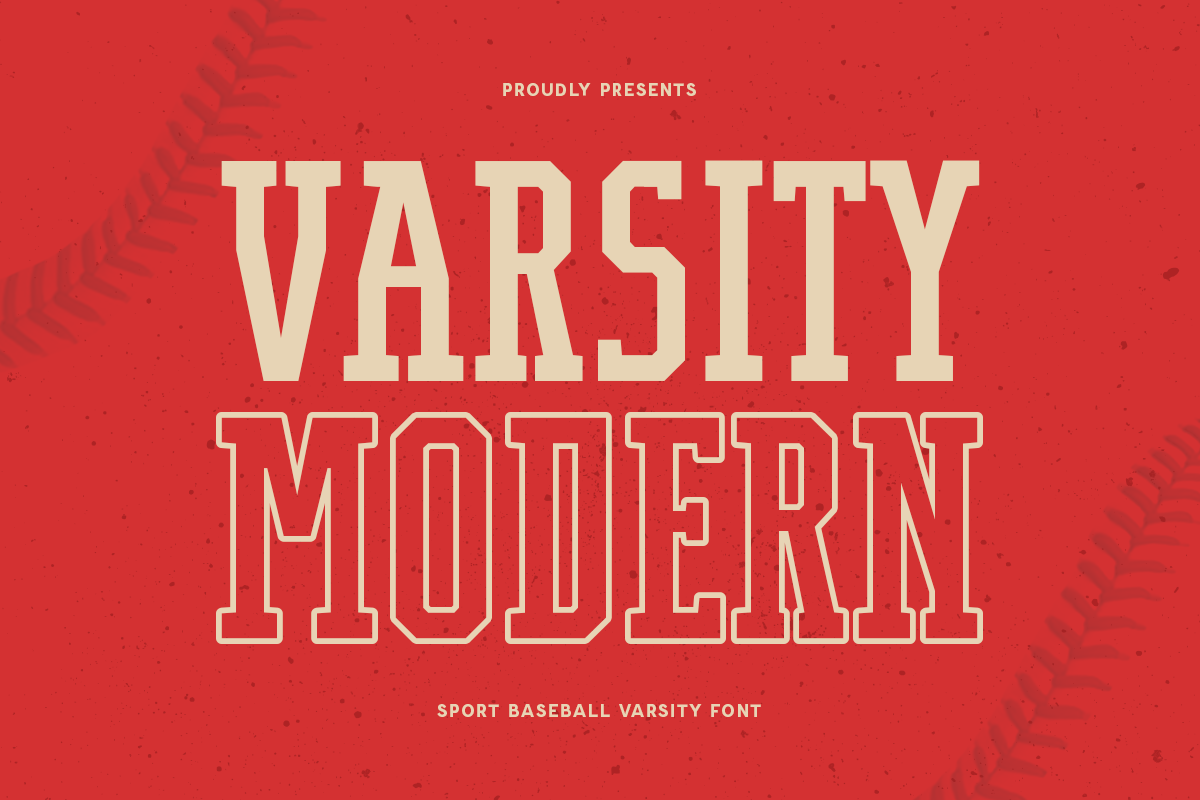
Top 10+ Back to School Fonts in 2026
Discover the best back to school fonts 2026 for classroom designs, educational projects, school branding, worksheets, and creative learning materials.
Back to school season is an exciting moment filled with new beginnings, fresh ideas, and creative opportunities. From classroom decorations and learning materials to school branding, educational worksheets, and social media content, typography plays an important role in creating a memorable learning experience.
The right back to school font can transform ordinary educational designs into something more engaging, friendly, and inspiring. Whether you are a teacher preparing classroom resources, a designer creating school-related projects, or a brand developing educational content, choosing the perfect font helps communicate the right atmosphere.
Back to school designs are not only about visual appearance. They represent creativity, curiosity, learning, and connection. A carefully selected font can make educational materials feel:
Fun and approachable
Creative and inspiring
Organized and professional
Friendly and student-focused
Playful and memorable
Why Choosing the Right Font Matters for Education Designs
Typography has a powerful impact on how students and audiences interact with educational content. The right font choice can improve readability while adding personality to every design element.
Back to school fonts are commonly used for:
Classroom posters and decorations
Worksheets and activity sheets
Educational presentations
Teacher resources
School announcements
Student planners and journals
Learning worksheets
Flashcards and educational games
School merchandise
Social media content
For schools and educational brands, consistent typography also helps create a stronger visual identity across different platforms. A good font system can make educational materials look more professional, recognizable, and engaging.
How to Choose the Best Back to School Font
Choosing the right font depends on the purpose and audience of your design. A good education font should balance creativity with readability. The design should feel exciting without making the text difficult to understand.
For classroom materials:
Choose fonts that are clear, readable, and friendly. Handwritten and rounded fonts work well for worksheets, notes, and learning activities.
For school branding:
Use fonts that feel professional and consistent. A combination of modern serif, sans serif, or display fonts can create a strong academic identity.
For creative educational projects:
Playful fonts, chalk fonts, and handwritten styles can add personality while keeping designs engaging.
Top 10+ Back to School Fonts for Classroom & Education Designs in 2026
In this article, we will explore the best back to school fonts from Sensatype Studio that are perfect for teachers, students, educators, and designers. These fonts are carefully selected for classroom projects, educational branding, printable designs, school campaigns, and creative learning materials.
Boardly - Rough Handwritten Chalk Font
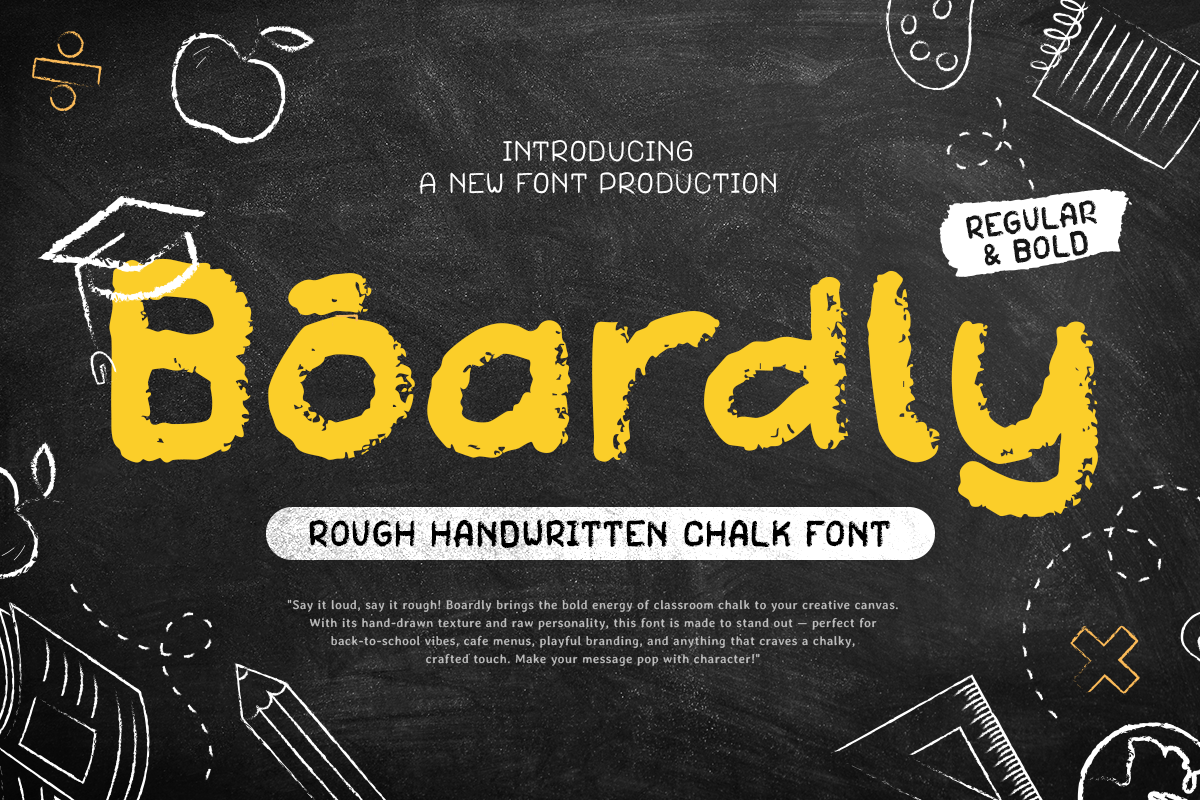
Boardly is a rough handwritten chalk font with authentic textured strokes that create a casual and artistic feel. Perfect for chalkboards, posters, school projects, signage, and creative branding with a handmade touch.
Correct - Rounded Handwritten Scribble Notes
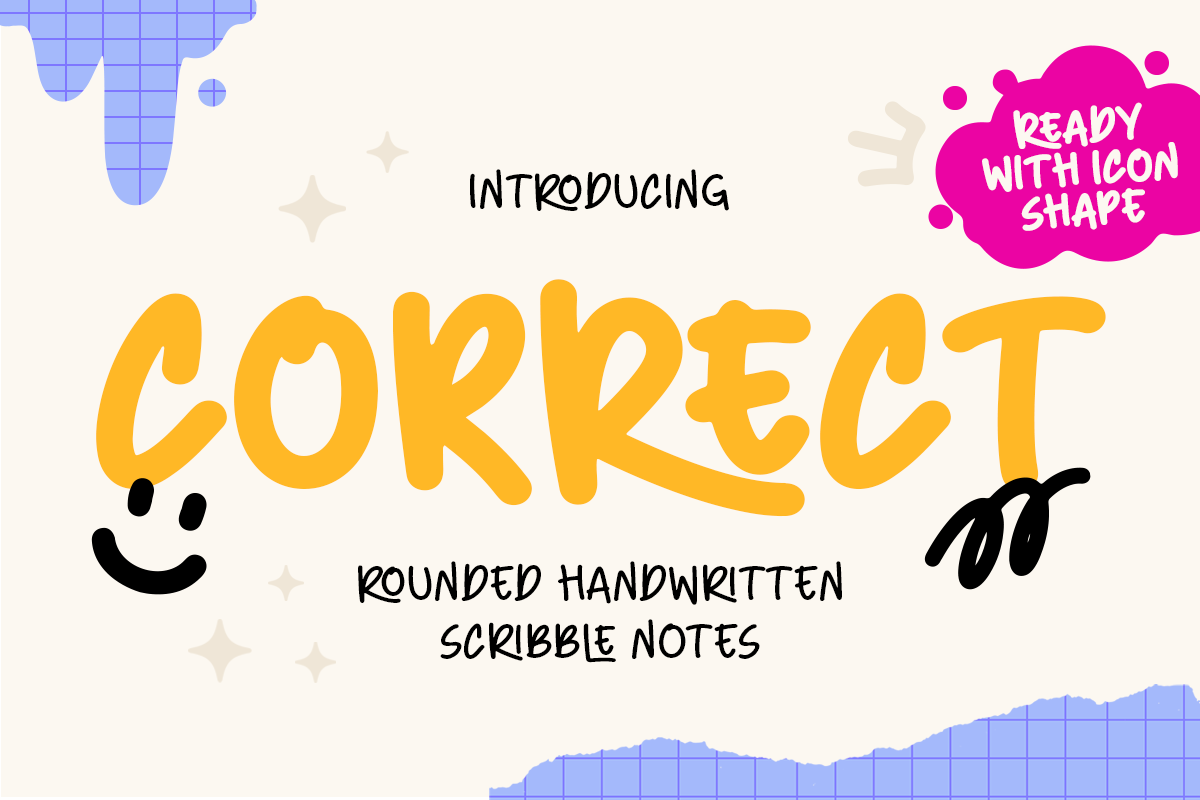
Correct is a rounded handwritten font with soft scribble-style strokes that create a cozy and friendly personality. Perfect for journals, planners, stickers, notes, labels, and playful creative designs.
Teacher Notes - Handwritten Chalk Font
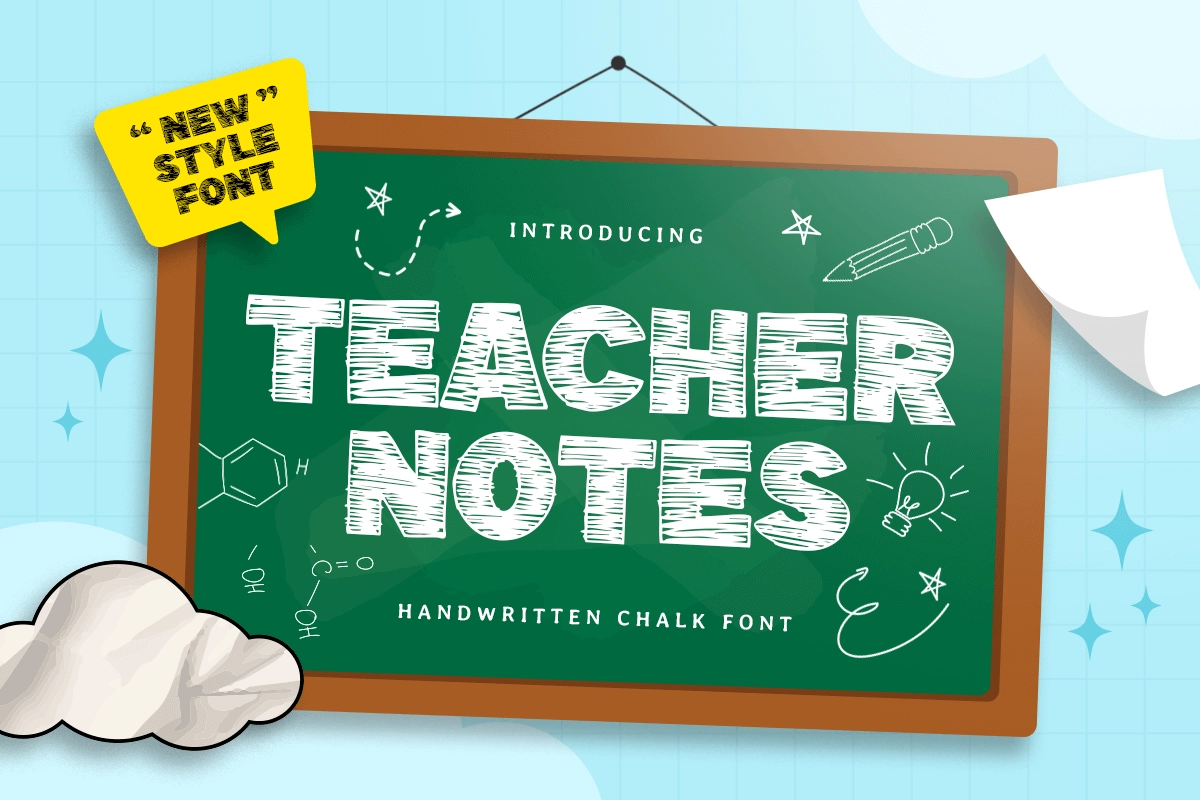
Teacher Notes is a handwritten chalk font inspired by natural blackboard writing. Ideal for educational designs, classroom materials, worksheets, posters, and learning content with a warm handmade style.
Pen Notes - Notes Handwritten Font
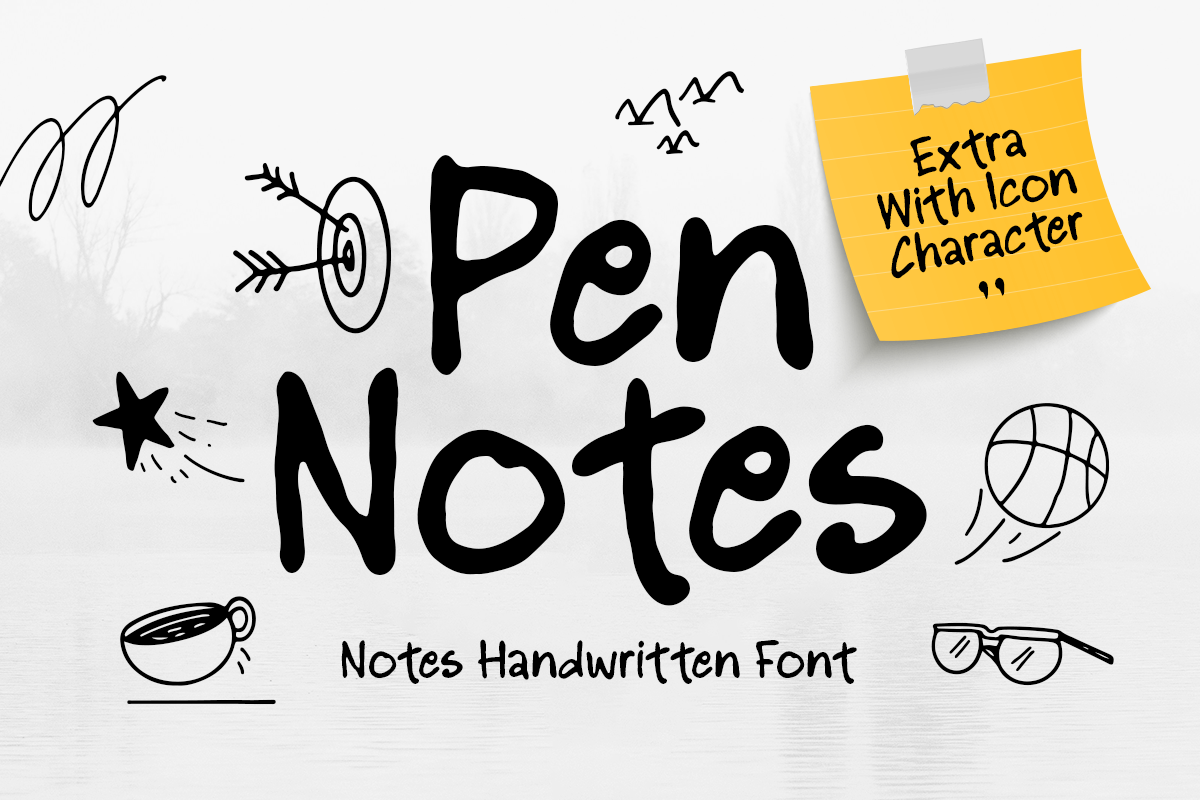
Pen Notes is a natural handwritten font inspired by everyday pen writing. Its neat and friendly style works perfectly for journals, planners, stationery, quotes, labels, and lifestyle branding.
Kalcer - Funny Creative Font
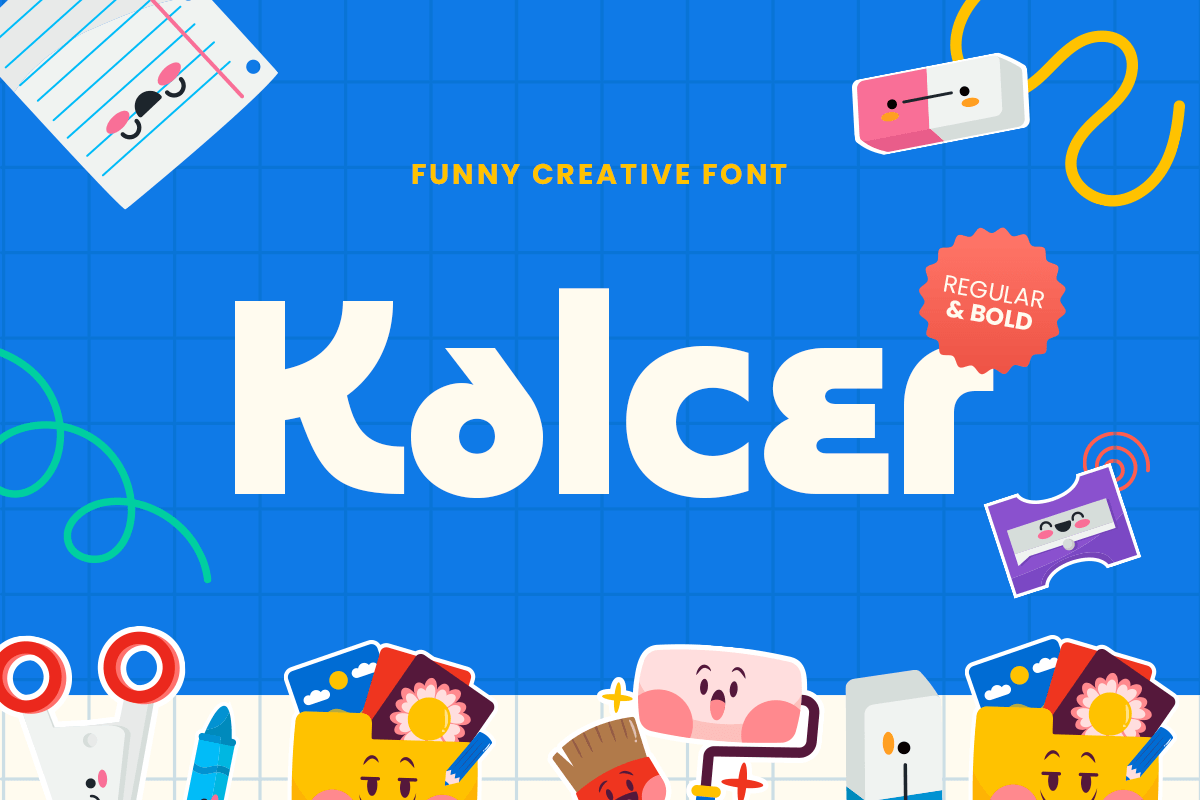
Kalcer is a playful creative font with bubbly shapes and a fun personality. Perfect for children’s designs, packaging, logos, marketing materials, and projects that need a cheerful visual style.
Dream Planner - Handwritten & Sans Draft Font
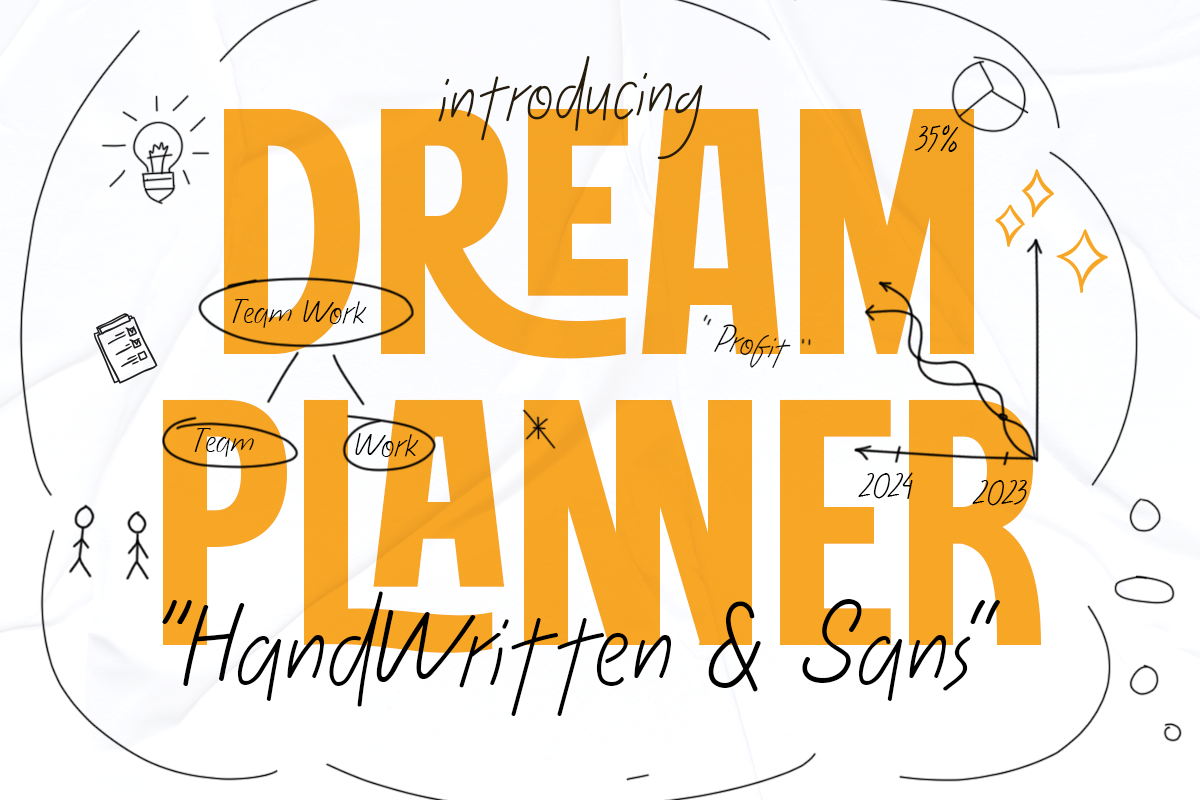
Dream Planner combines elegant handwriting with clean sans serif elements. Perfect for planners, journals, branding, social media, and creative projects that need a personal yet modern touch.
Journaling Notes - Handwritten Notes Font
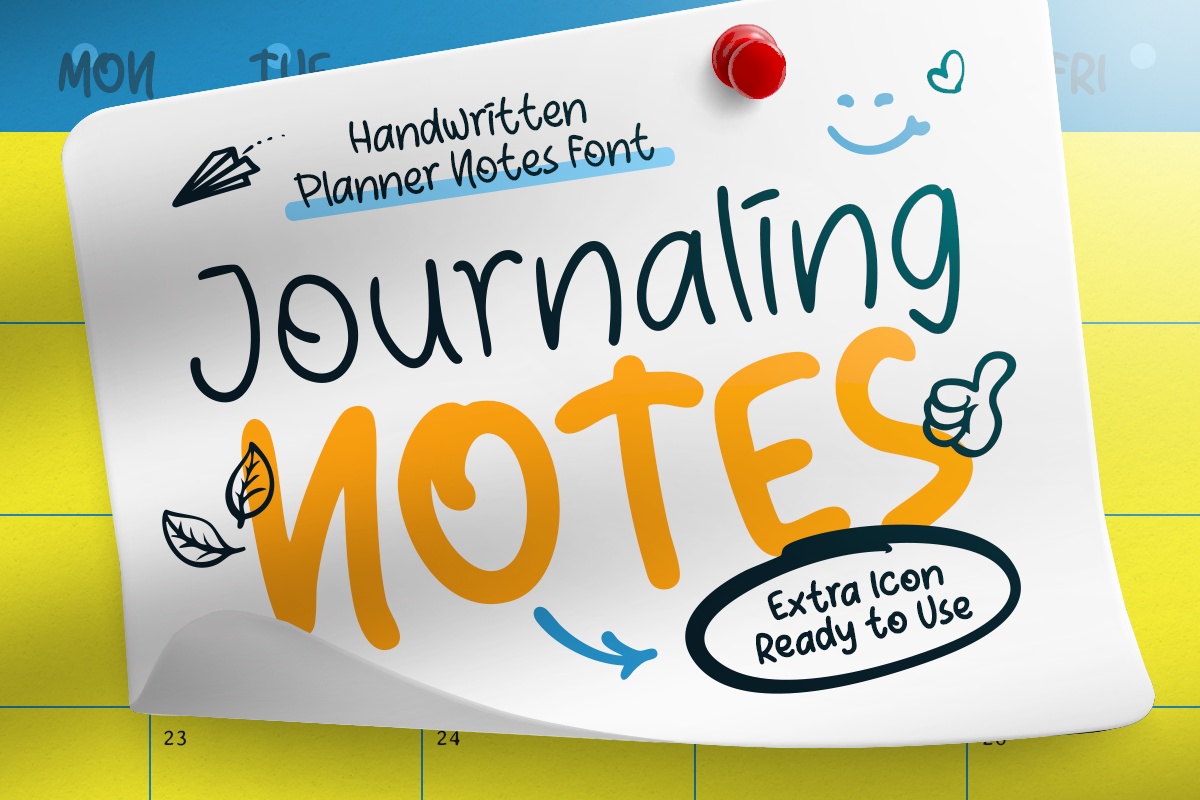
Journaling Notes is a handwritten font inspired by natural pen strokes and personal notes. Perfect for planners, stationery, stickers, packaging, and cozy creative designs.
Planner Notes - Handwritten Marker Font
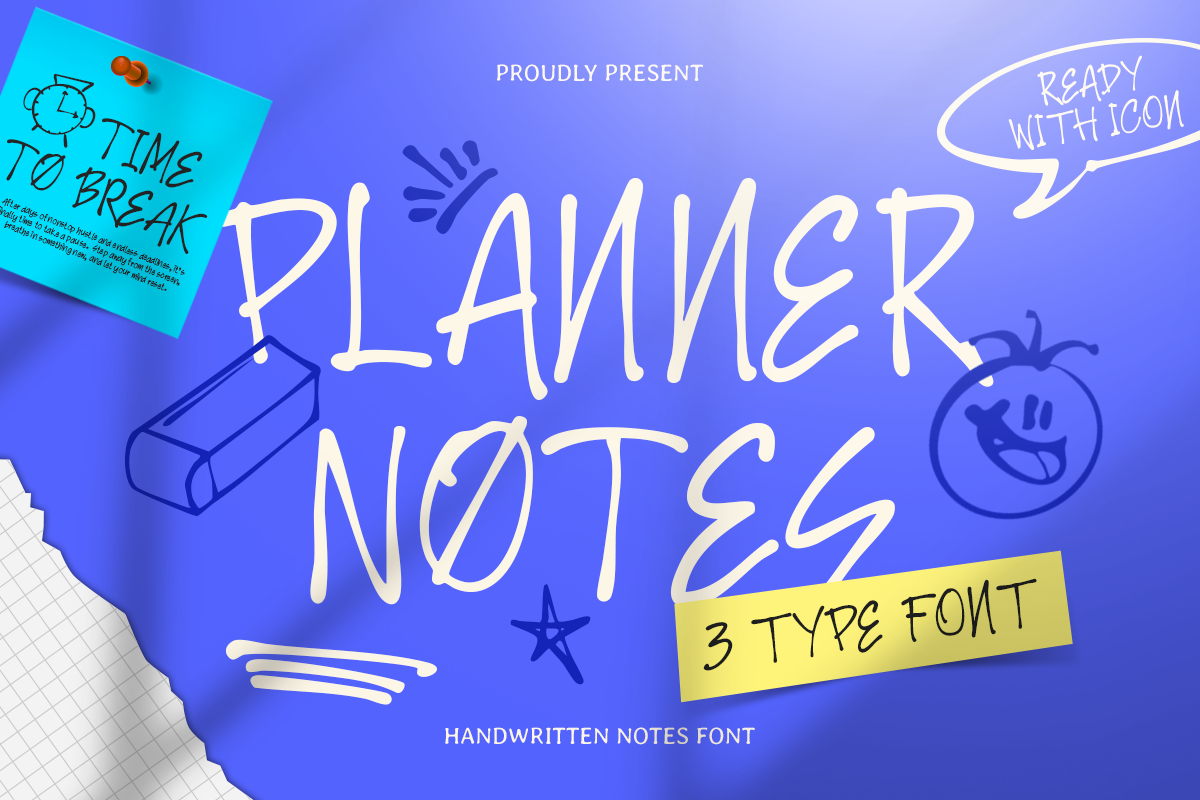
Handwritten fonts bring warmth, chalk fonts create a classroom atmosphere, and modern display fonts add personality to educational projects. By choosing the right font style, you can create designs that feel professional, engaging, and meaningful throughout the school year. Explore the best back to school fonts from Sensatype Studio and discover typography styles that bring your classroom and education designs to life.